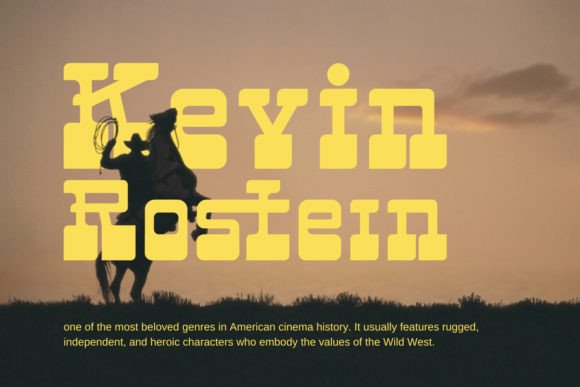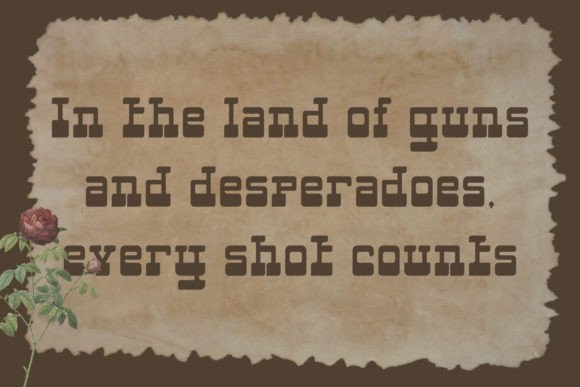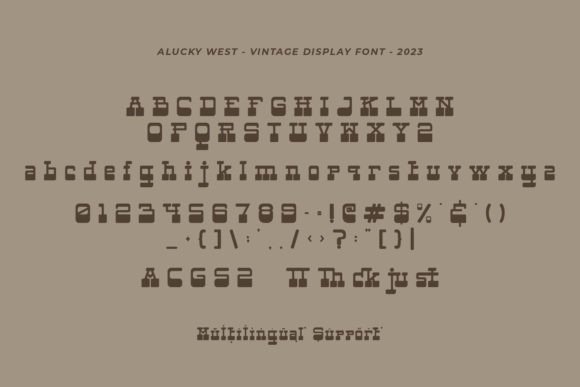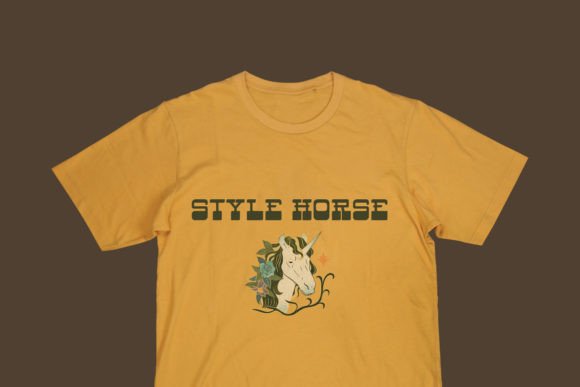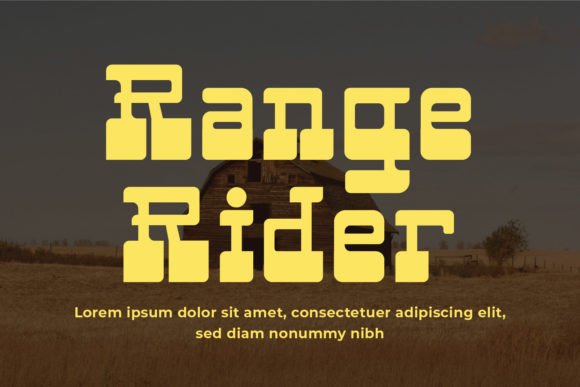
Introducing Alucky West: The Ultimate Vintage Display Font for Your Design Needs
Have you ever been in the middle of a design project, and suddenly, you just can’t seem to find the right font? I recall working on a vintage-themed poster for a client’s restaurant, and I was on a mission to find the perfect font that would transport their audience to the wild west. That’s when I stumbled upon “Alucky West,” a vintage display font that effortlessly captures the essence of the old west.
The Design Moment that Stole My Heart
I was struggling to find a font that would add a touch of nostalgia and authenticity to my design. The client’s request was simple: create a poster that would make their audience feel like they’re in the 1880s, surrounded by saloons, cowboys, and endless plains. That’s when I discovered Alucky West, and it was love at first sight! ✨
An Honest Review of Alucky West
- ✅ The rustic and weathered appearance of Alucky West adds a touch of nostalgia and authenticity to my designs.
- ✨ The font is perfect for vintage-themed projects, signage, or any creative endeavor that requires a timeless, Western-inspired aesthetic.
- 🔥 The bold and rugged design of Alucky West makes it perfect for headlines, titles, and short text.
While Alucky West is an amazing font, there are a few things to keep in mind: ⚠️
- 🤔 The font may not be the best choice for body text or long paragraphs, as it can be a bit too bold and rugged.
- ⚠️ Some characters may not be suitable for small font sizes, so it’s best to use Alucky West for larger text.
The Backstory of Alucky West
Alucky West was inspired by the rugged and adventurous spirit of the old west. The font’s designer wanted to create a typeface that would capture the essence of the American frontier, with its rustic and weathered appearance. The result is a font that’s perfect for creating vintage-themed designs that transport your audience to a bygone era.
| What is Alucky West? | Alucky West is a vintage display font that captures the essence of the old west. |
| What is Alucky West best used for? | Alucky West is perfect for vintage-themed projects, signage, or any creative endeavor that requires a timeless, Western-inspired aesthetic. |